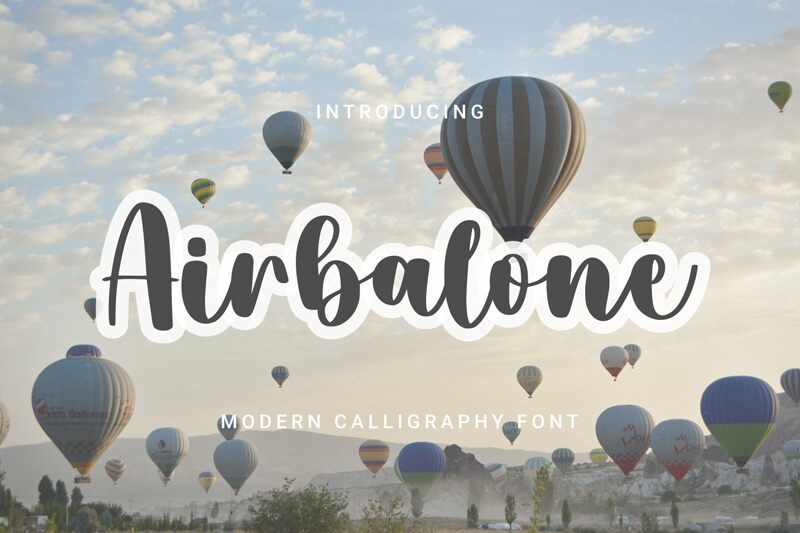
Airbalone, designed by Makashi, is a semi-bold calligraphy font that exudes an artistic flair with every stroke. Its sweeping curves and elegant lines bring a touch of personalization to any project, while the semi-bold weight ensures that text remains legible and impactful. This font's calligraphic style is reminiscent of hand-lettered artistry, making it perfect for invitations, branding, and advertising where a human touch is desired.
The aesthetic appeal of Airbalone lies in its ability to marry the classic charm of traditional calligraphy with modern design sensibilities. It's particularly suited for creatives seeking to infuse their work with personality without sacrificing sophistication. Whether you're crafting wedding stationery or conceptualizing a logo, Airbalone’s versatility lends itself beautifully to an array of design contexts.